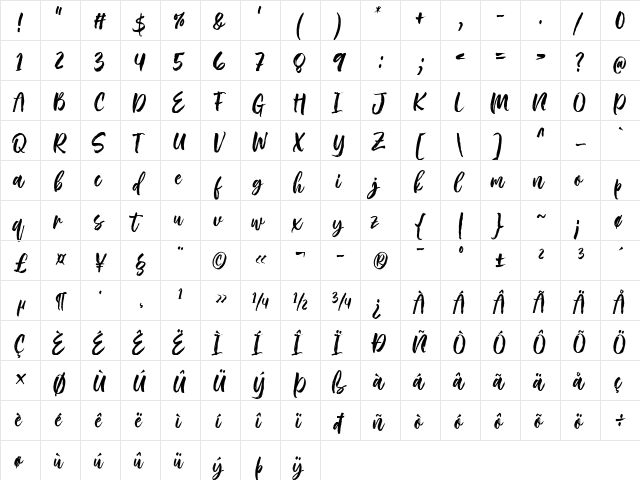
Rough Rough Regular
| Foundry | 7NTypes |
| Designer | Situjuh Nazara |
Design Context for Rough Rough Typeface
Rough Rough trades polish for personality, using distressed and eroded forms to bring grit and attitude to creative work.
Suited to punk-influenced zines, underground music branding, streetwear, and raw, anti-corporate design.